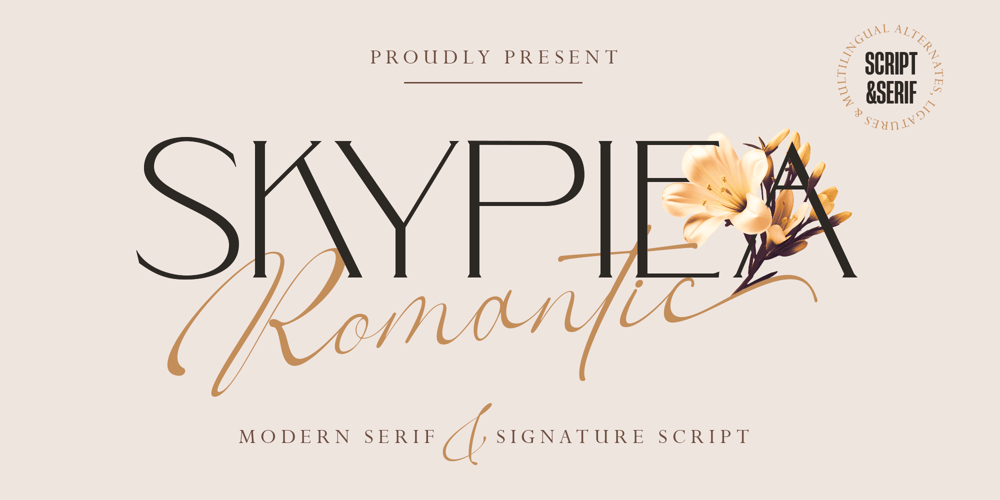
Skypiea Romantic
Skypiea Romantic font
Skypiea Romantic Font Family was designed by Romi Rahmadi and published by Romie Creative. Skypiea Romantic contains 2 styles and family package options. Hi everyone, I want to introduce Skypiea Romantic Font Duo, a classy pair of contemporary serif fonts and scripts. With its unique serif ligature font, it is perfect for combining with signature script fonts.This font is perfect for your various design projects , elegant branding, wedding stationery, romantic book cover designs, classy packaging, album covers, handwritten quotes, greeting cards, unique social media posts, and so much more.Skypiea Romantic Script a modern and elegant signature script font containing upper & lowercase characters, and a variety of alternative letters, all punctuation and numbers. Also contains 109 automatic ligatures to help text flow naturally like the original handwriting.Skypiea Romantic Serif is all Caps stylish & modern containing uppercase characters, all punctuation & numbers. It is also equipped with 58 automatic ligatures and has several alternative letters to enhance your beautiful design.Cheers, Romie Creative